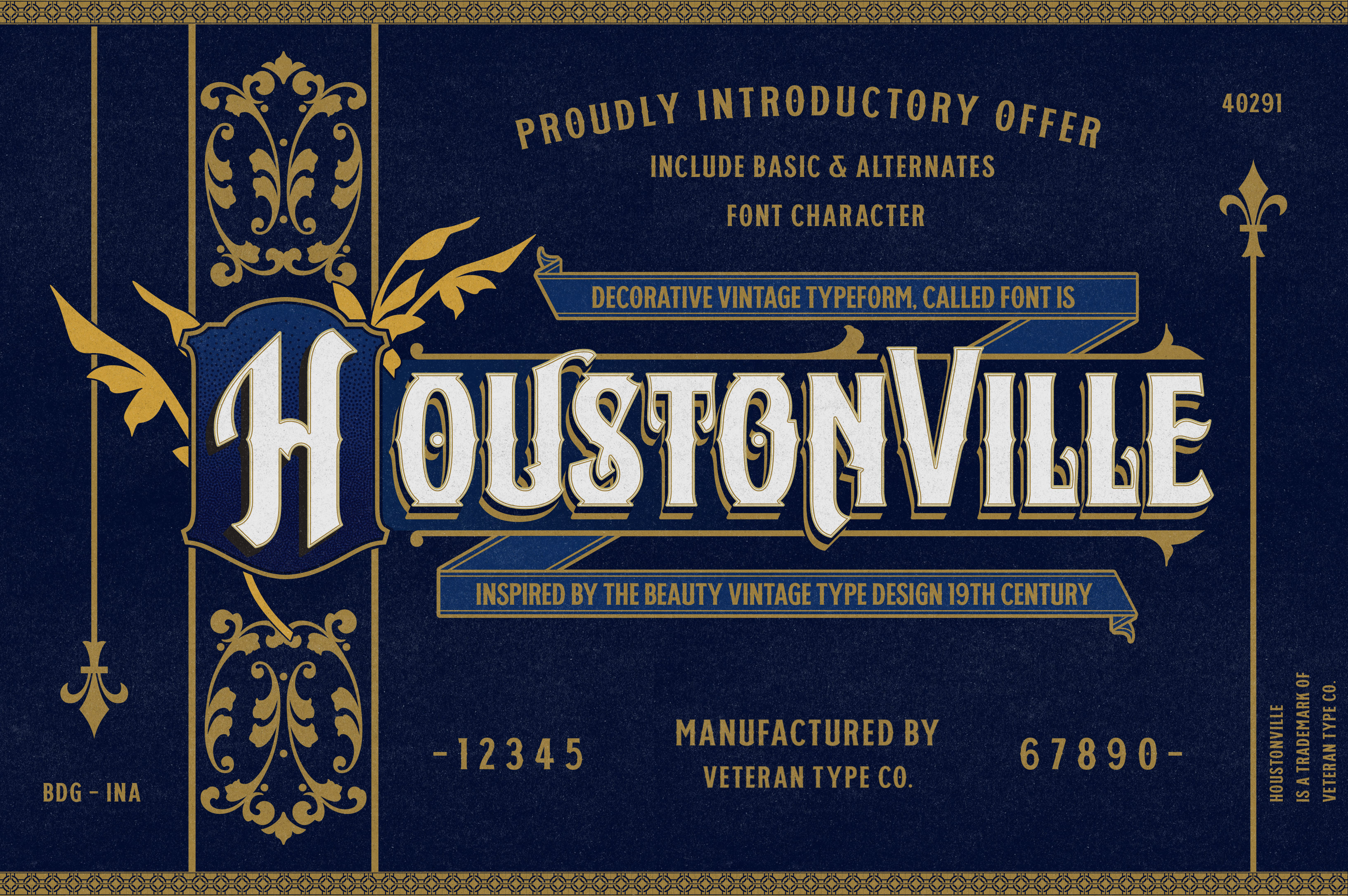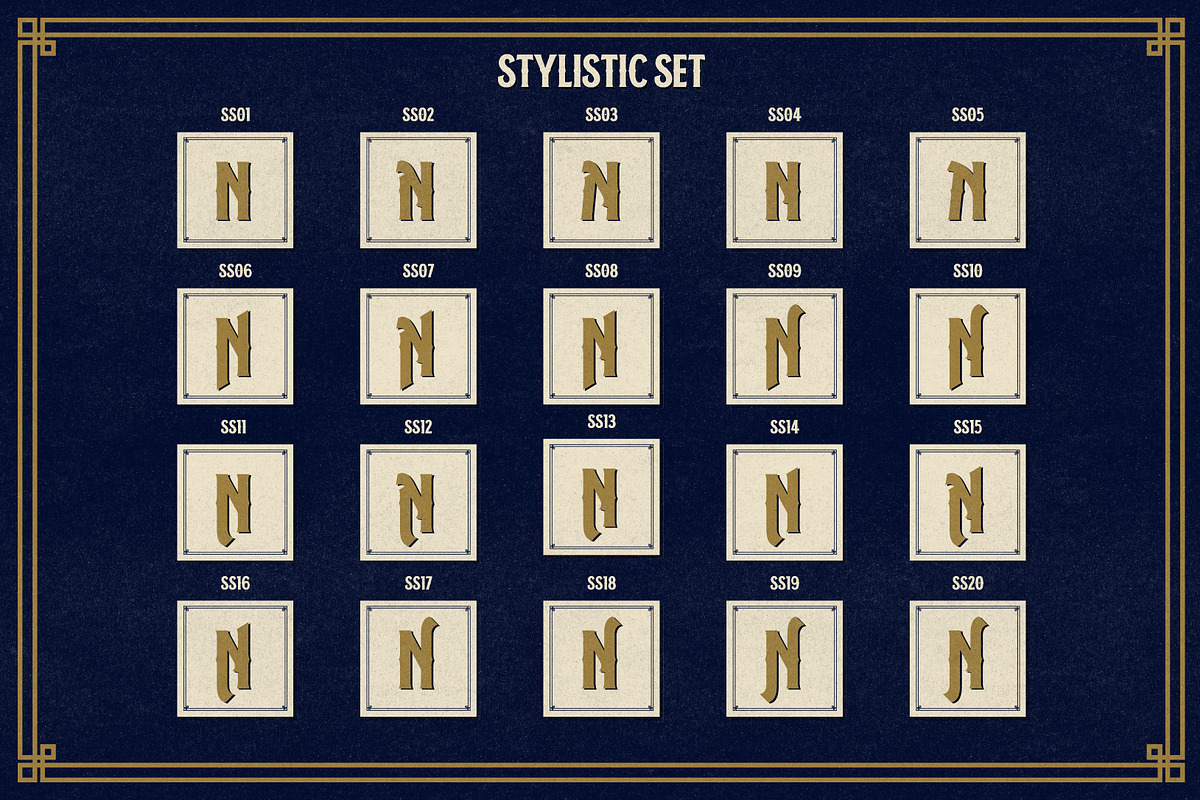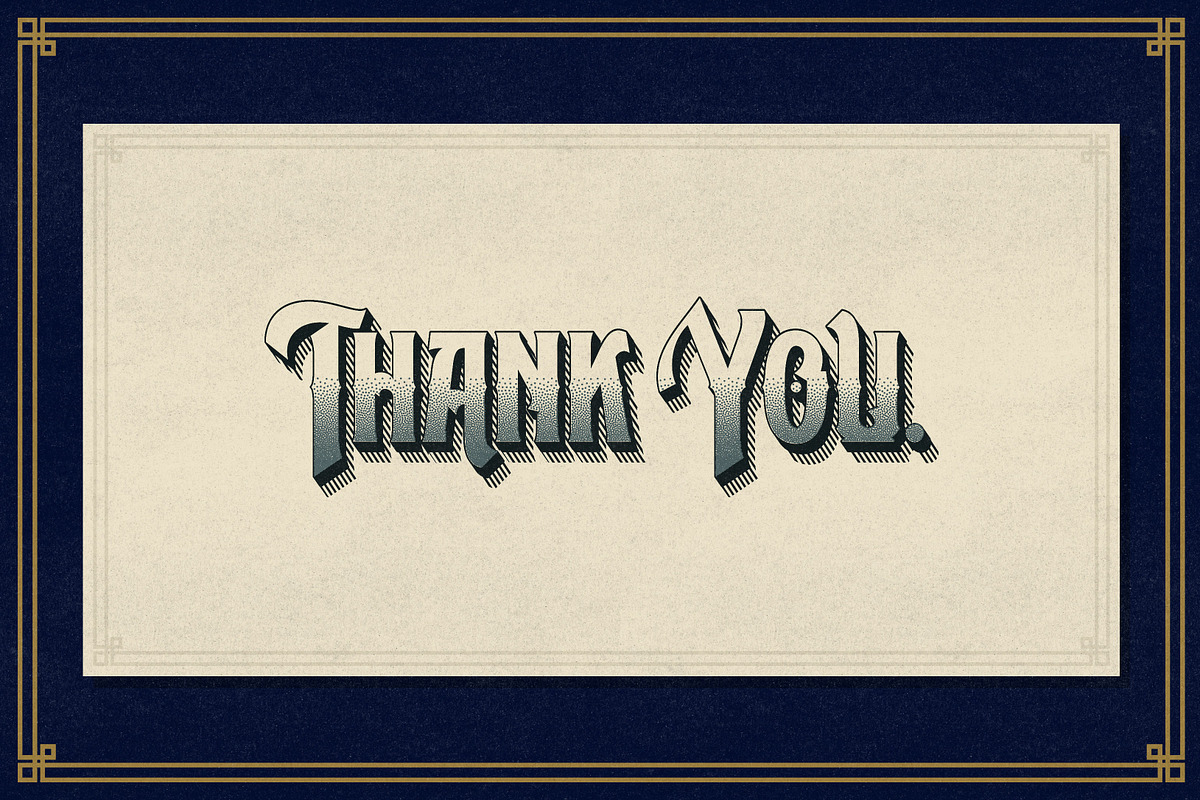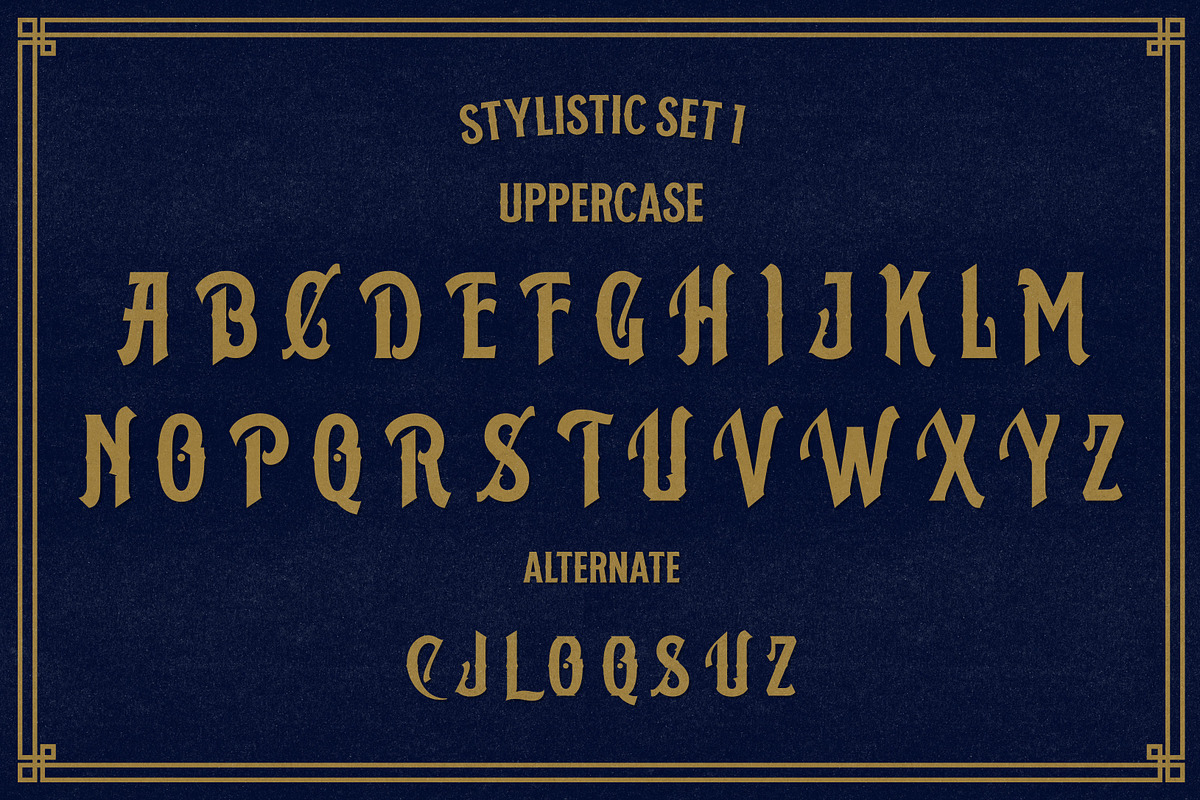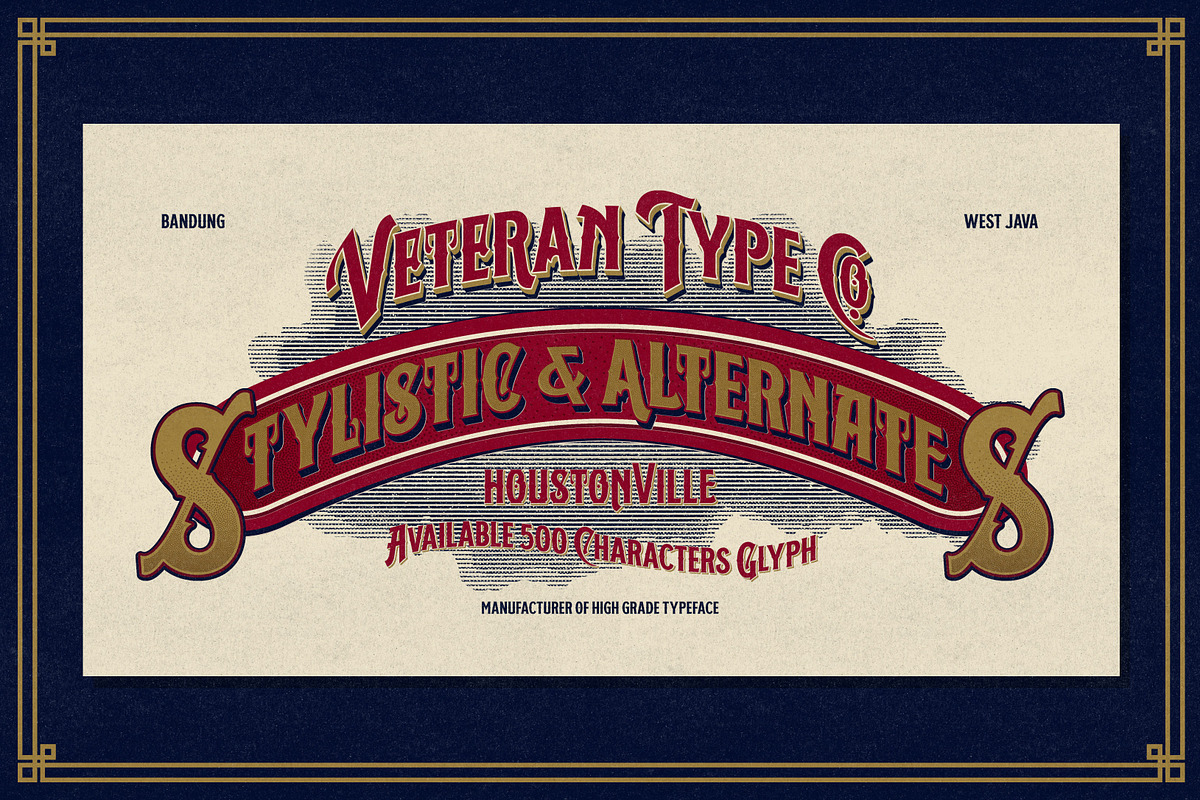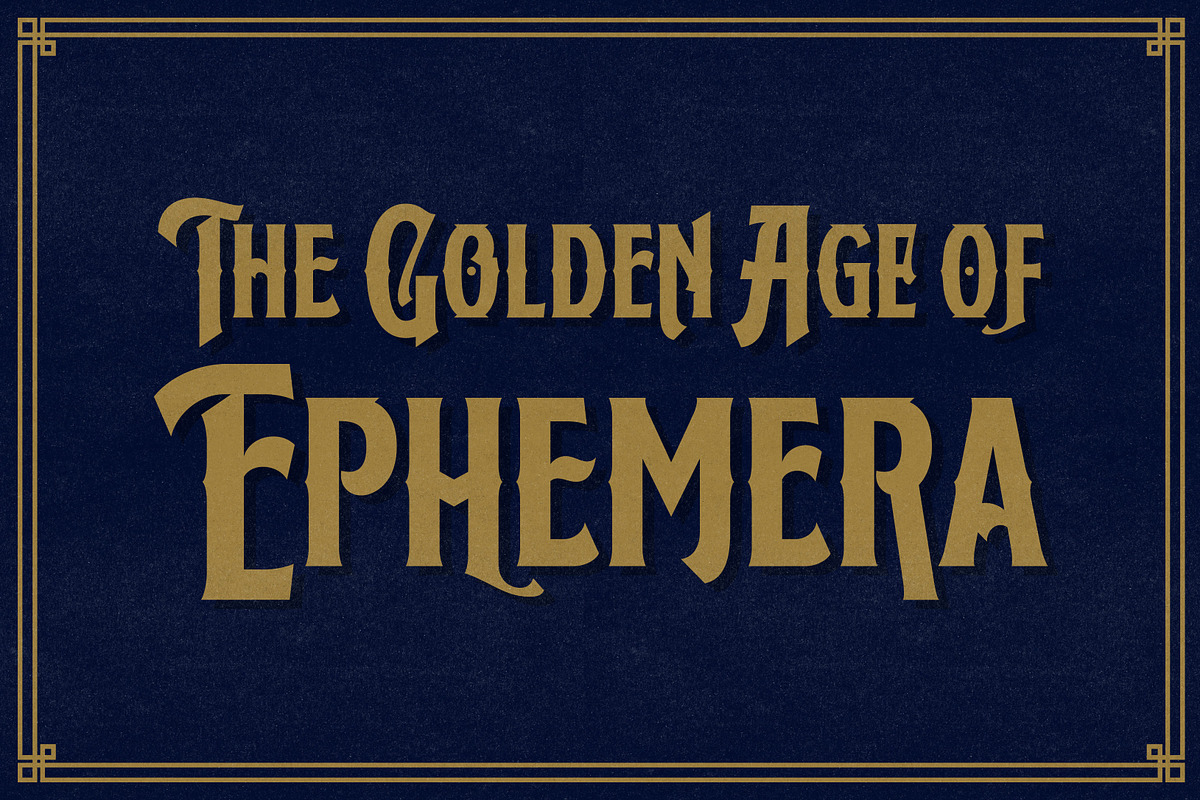
Houstonville - Victorian Font
Houstonville This font is inspired by ancient letters in the 19th century. This font is very suitable for designs with ancient concepts, such as print, logo design, and others.
This letter consists of :
- 20 stylistic set
- 520 ± glyph count
- Support for multiple languages
- Math Symbol